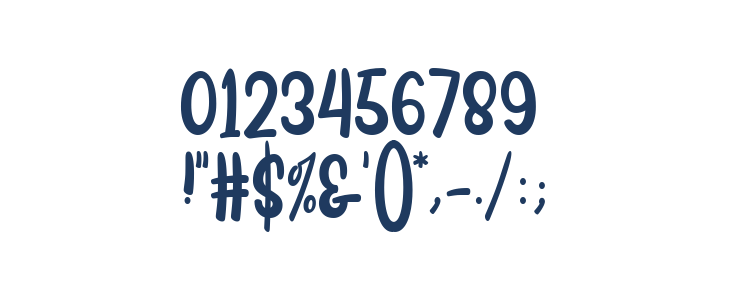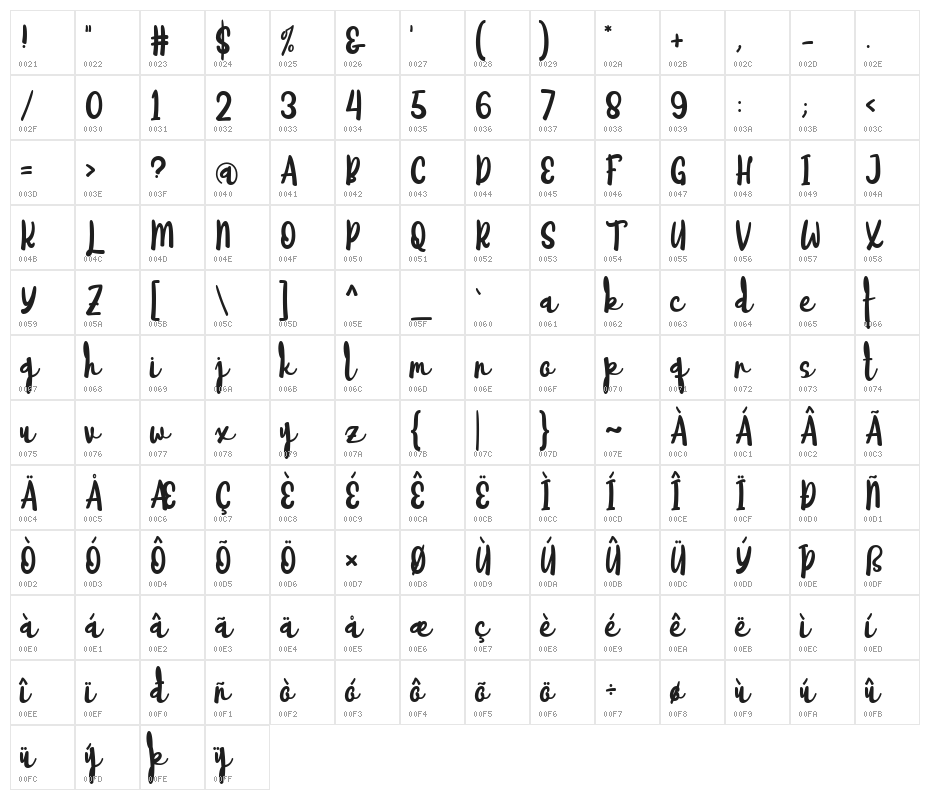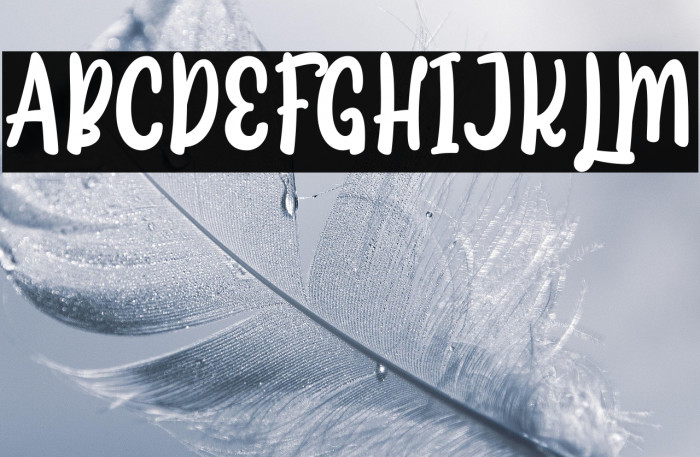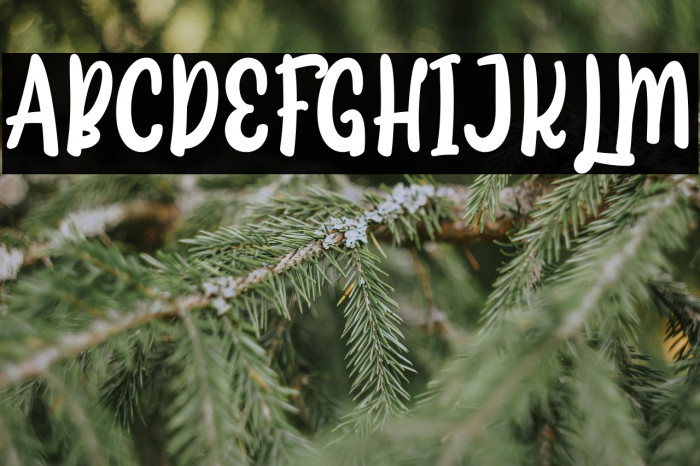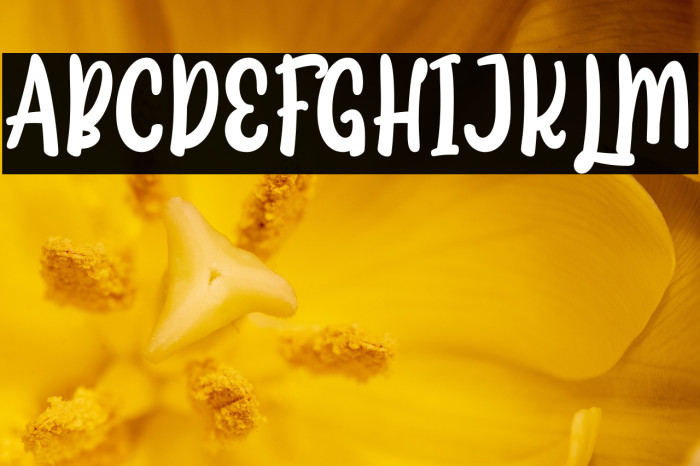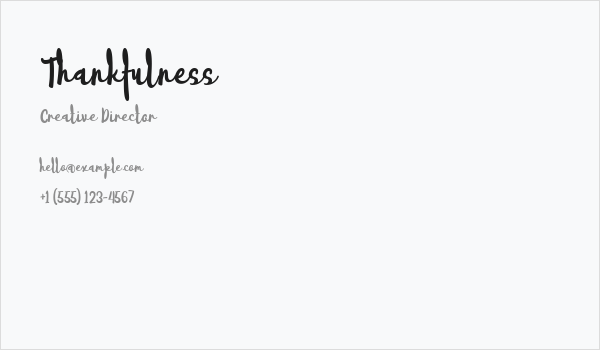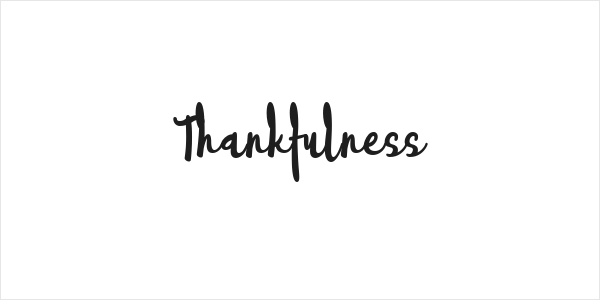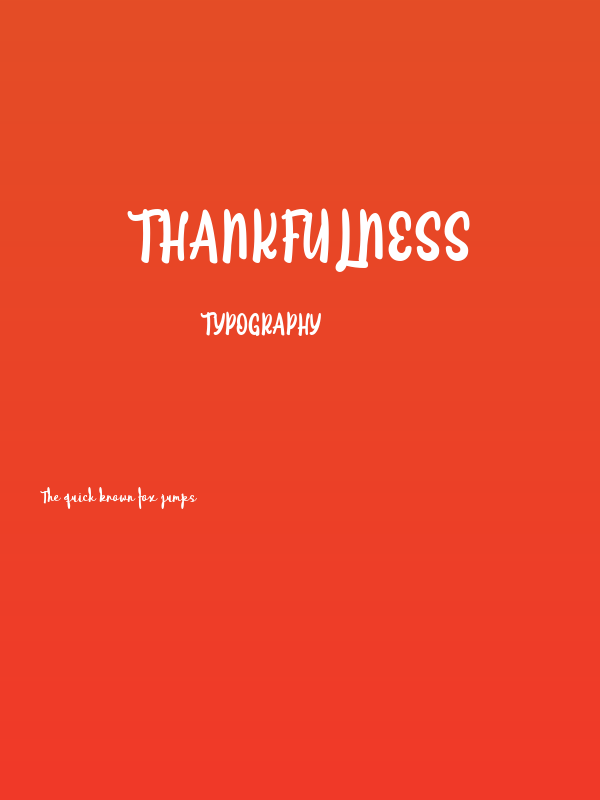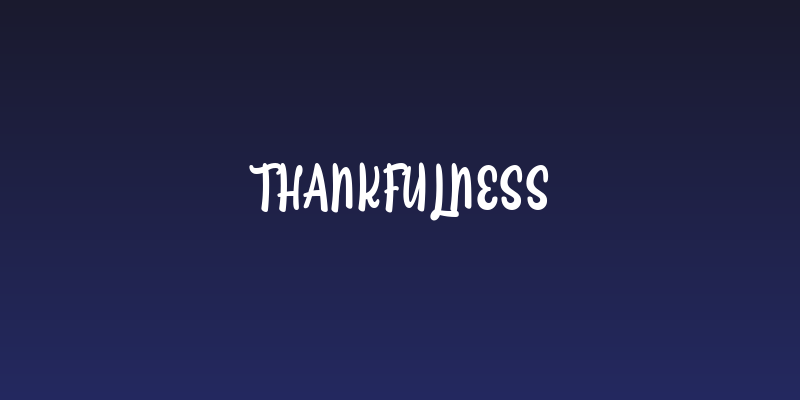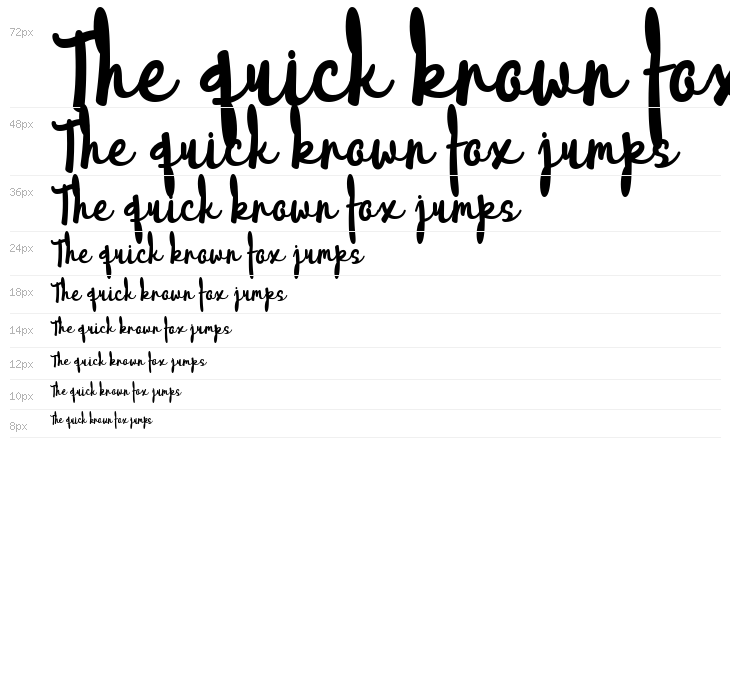
Thankfulness Font
Thankfulness Description
This font features a playful and energetic script style with a handwritten appearance. The characters are bold and slightly slanted, giving a sense of movement and fluidity. The uppercase letters are tall and rounded, while the lowercase letters maintain a consistent flow with connected strokes. Numbers and special characters follow the same lively style, making them stand out. The font's overall look is casual yet expressive, perfect for adding a personal touch to any design.
| Proposed Projects | Ideal for greeting cards, invitations, posters, and branding projects that require a personal and lively touch. |